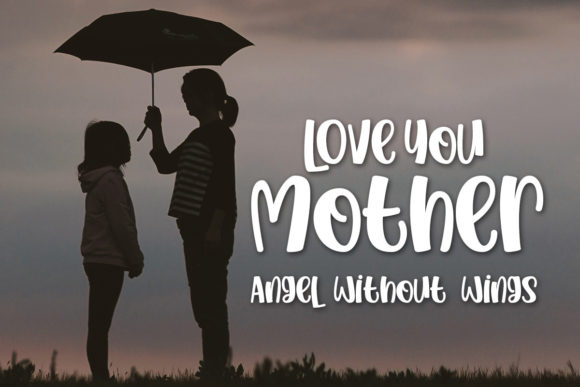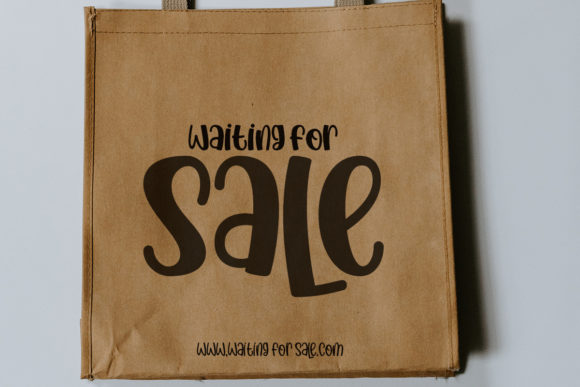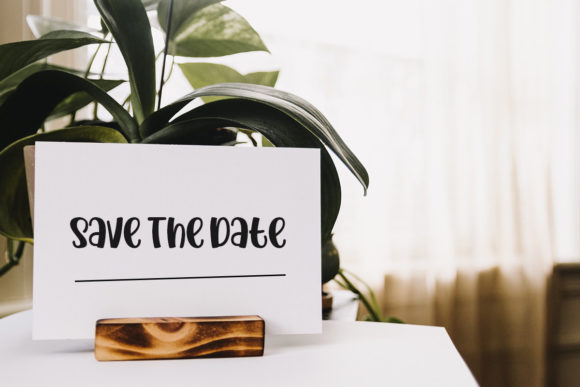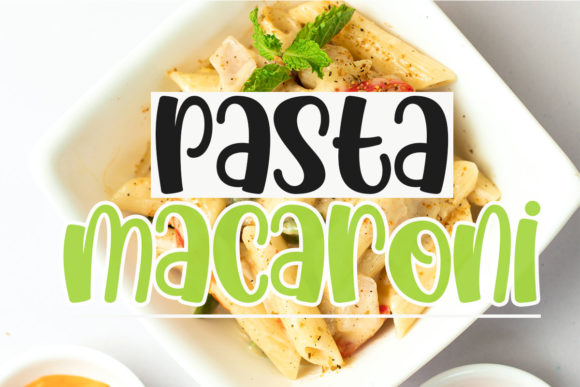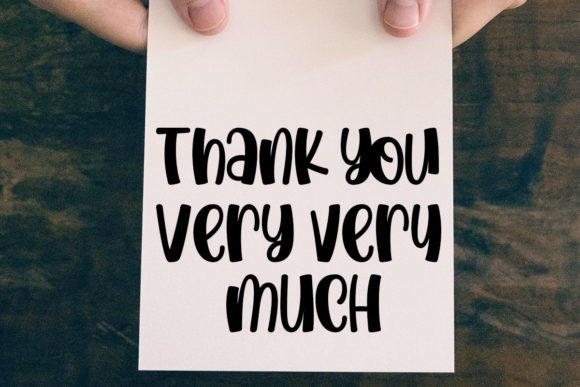
Introduction to Rain Cloud Font
This interesting and fun handwritten font looks youthful and fresh, perfect for your upcoming creative projects.
The characters look unique and friendly, fitting to a wide pool of designs .